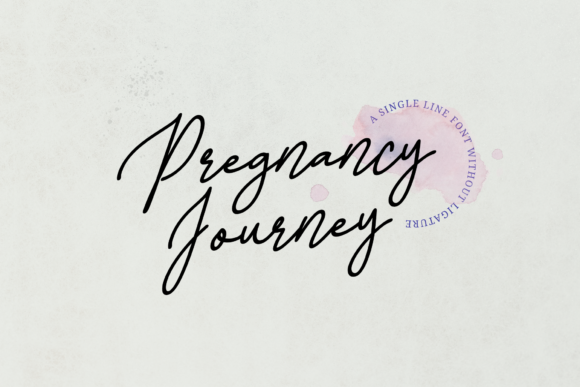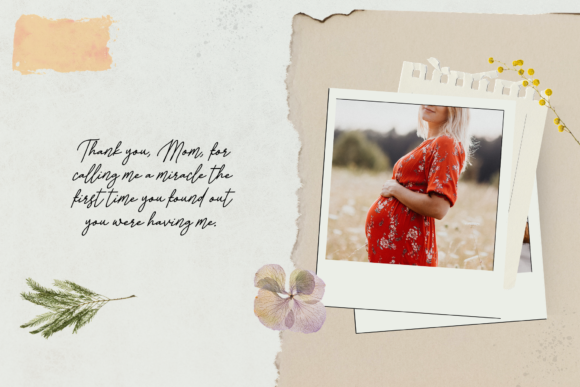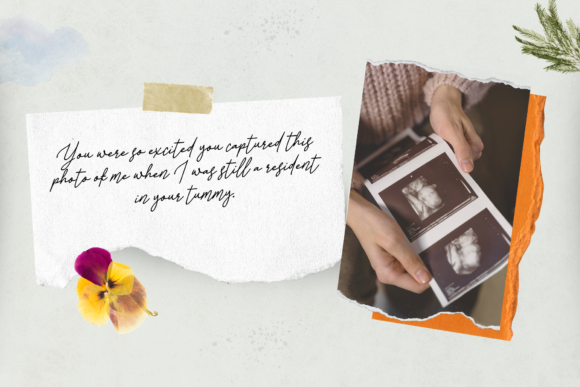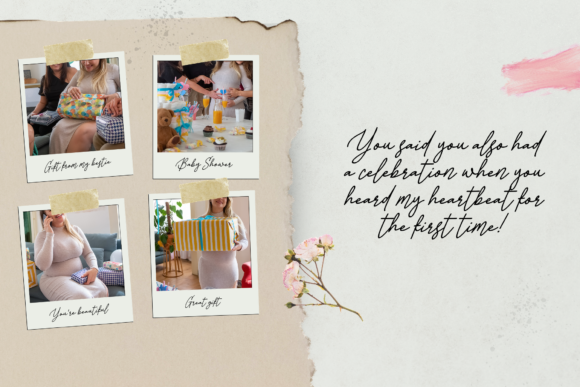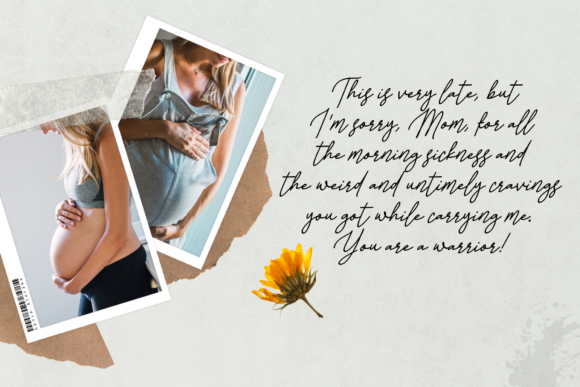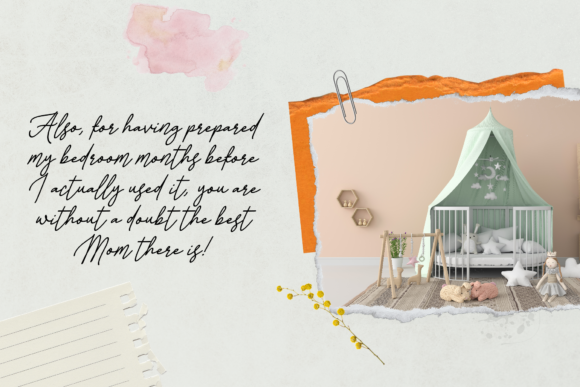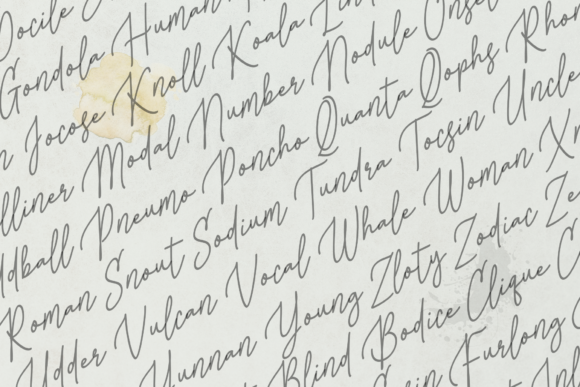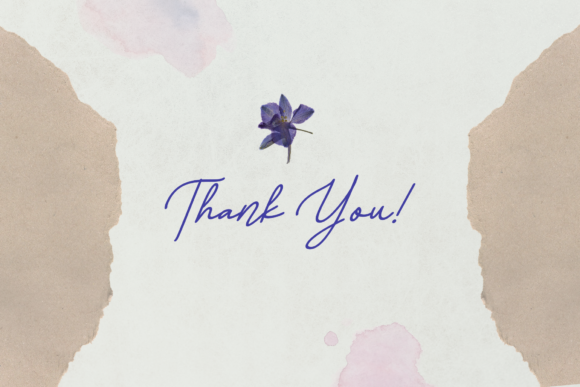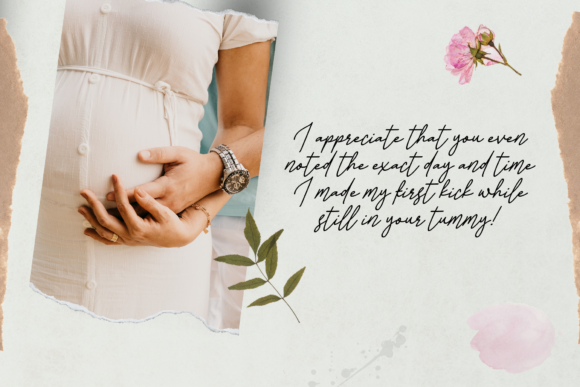
Pregnancy Journey Font
About Pregnancy Journey Font
Introducing “Pregnancy Journey,” a delicate and flowing script font designed to bring elegance and charm to your branding projects. With its graceful curves and smooth lines, Pregnancy Journey adds a touch of sophistication to any design.
Whether you’re creating logos, t-shirt designs, sports graphics, or any other branding project, Pregnancy Journey delivers outstanding results. Its versatile style makes it suitable for a wide range of contexts, ensuring that your designs stand out with grace and beauty.
Experience the beauty and versatility of Pregnancy Journey and watch as it transforms your projects into stunning works of art. Whether you’re a professional designer or a passionate enthusiast, this font invites you to explore new possibilities and express yourself with confidence and style.